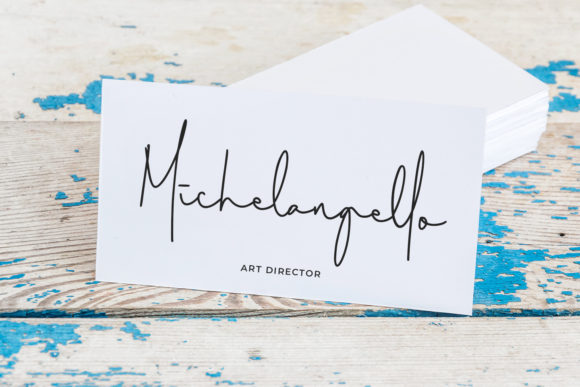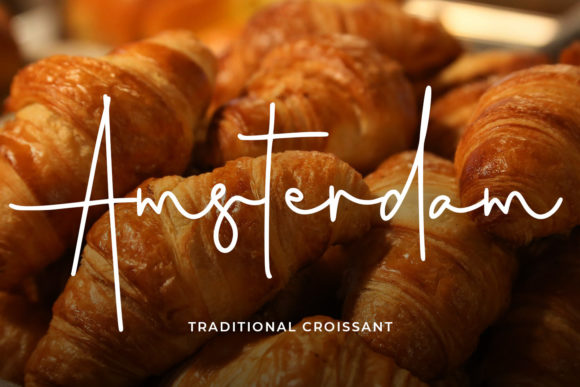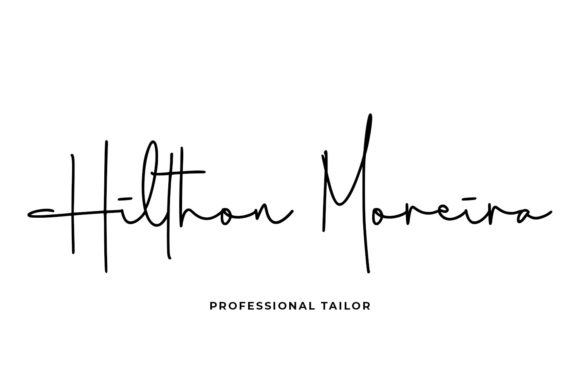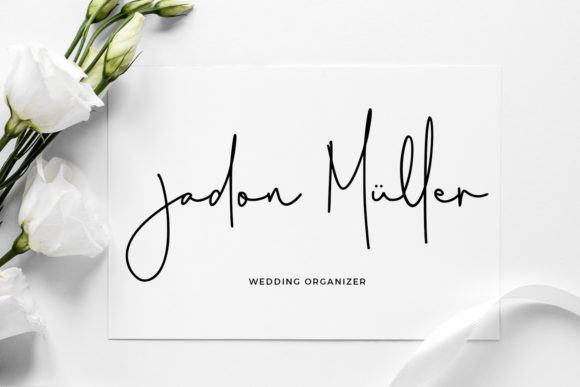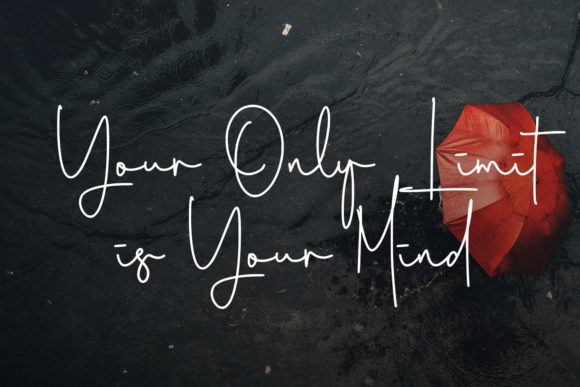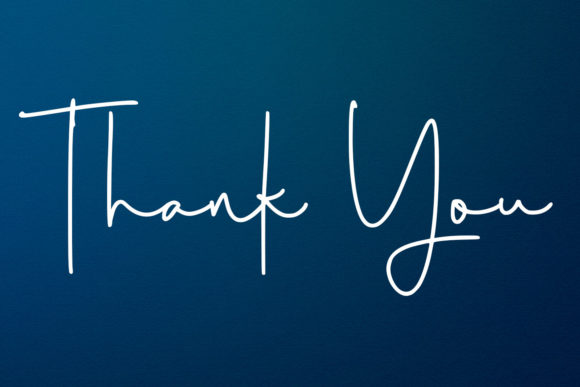
Introduction to Ballondior Font
As a designer, you know that finding the perfect font can make or break a project. I still remember the moment I stumbled upon the Ballondior Font – it was like a breath of fresh air in the world of typography. The delicate, thin lines and elegant curves had me hooked from the very first glance. I knew I had to learn more about this beautiful font and how it could elevate my designs.
Key Features of Ballondior Font
- Unique, hand-drawn design ideal for creative projects requiring a high-quality design resource.
- Supports a wide range of languages, making it a versatile choice for international creative projects.
- Perfect for use in graphic design, digital art, and other creative endeavors where a distinctive font is required.
Honest Review: Ballondior Font
I recently had the chance to work with the Ballondior Font, and I must say it’s been a great addition to my design resource library. ✨ The high quality of the font really shines through, especially when used for creative projects that require a touch of elegance.
One of the standout features of this font is its versatility. It works well for a wide range of designs, from logos and branding materials to social media graphics and presentations. ✨ I’ve also found it to be quite easy to work with, as it includes a transparent background, making it simple to place over images or other design elements.
- Works well for a variety of design projects
- High quality and elegant appearance
Overall, I’m very impressed with the Ballondior Font. It’s a great resource for designers looking to add a touch of sophistication to their creative projects. While it may not be perfect, its strengths far outweigh its weaknesses, and I would highly recommend it to anyone looking for a high-quality font.
The Ballondior Font is commonly used in branding, marketing materials, and creative projects where a unique and eye-catching font is required. It’s also suitable for use in presentations, documents, and other design materials where a high-quality font is needed.